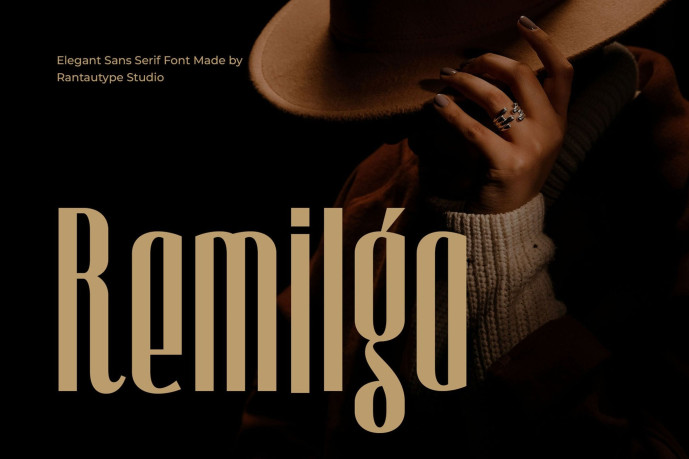
Remilga Elegant Serif Font
Remilga is elegant serif font with tall and strong character. Remilga is a perfectly choice for any creative endeavor, chic, lifestyle design such as logotype, advertisements, watermark on photography, stationery, branding project, display and magazine, invitation, corporate brand, product design, label, business project and many other project with retro touch.
• Standart Glyphs
• Numberial and Functional
• Alternate and Ligature